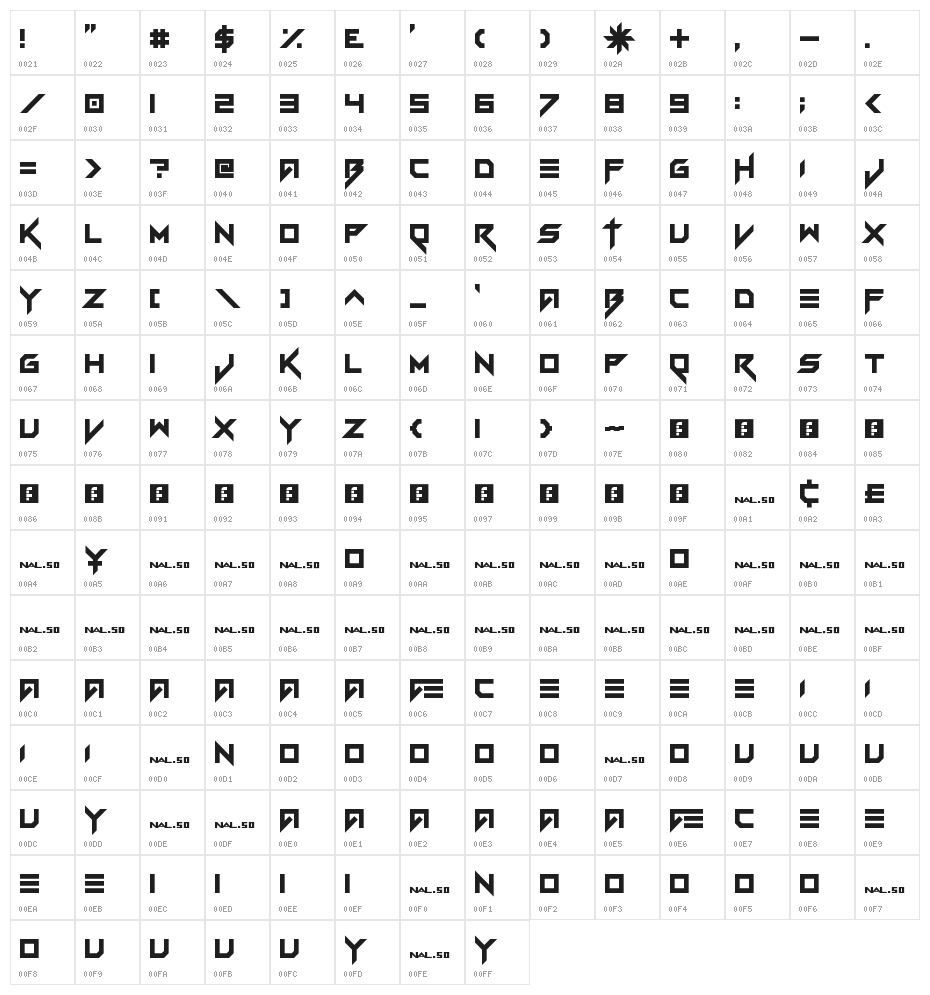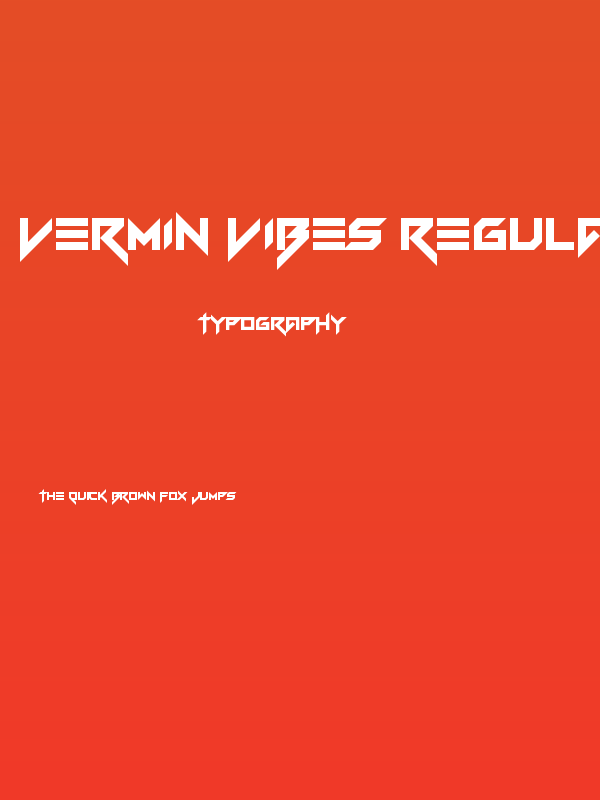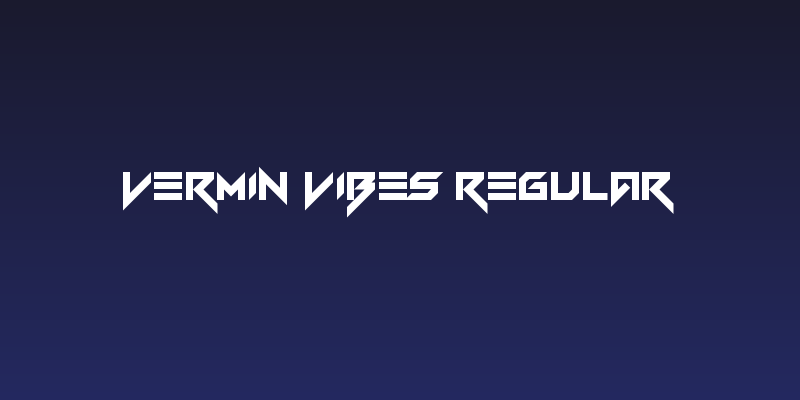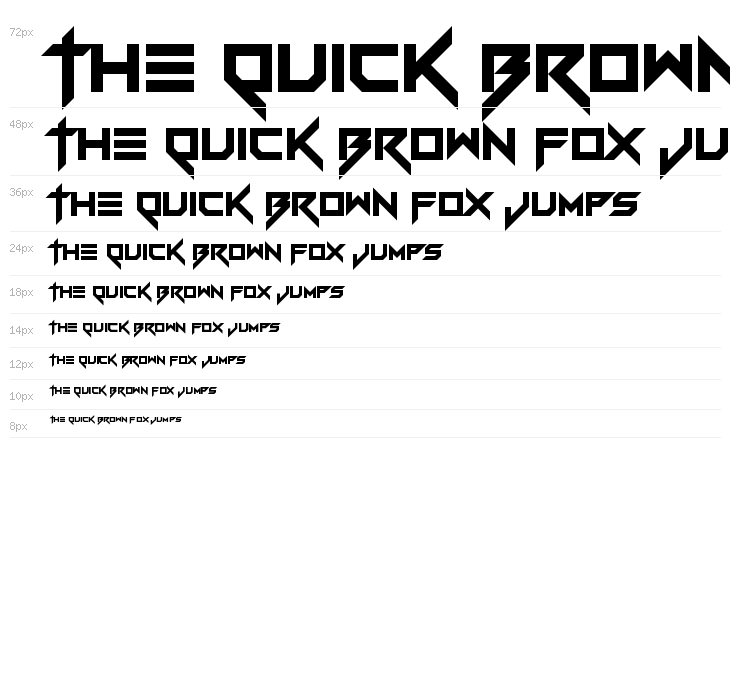
Vermin Vibes Regular Font
Vermin Vibes Regular Description
This font features a bold, angular design with sharp edges and geometric shapes, giving it a futuristic and edgy appearance. The characters are constructed with a consistent thickness, creating a uniform look across all letters and numbers. The style is reminiscent of digital or sci-fi themes, with a strong emphasis on straight lines and pointed corners. The uppercase and lowercase letters maintain a cohesive design, while the numbers and special characters follow the same angular motif. This font is ideal for projects that require a modern and striking visual impact.
| Proposed Projects | Ideal for sci-fi themed posters, video game titles, tech branding, and futuristic event flyers. |